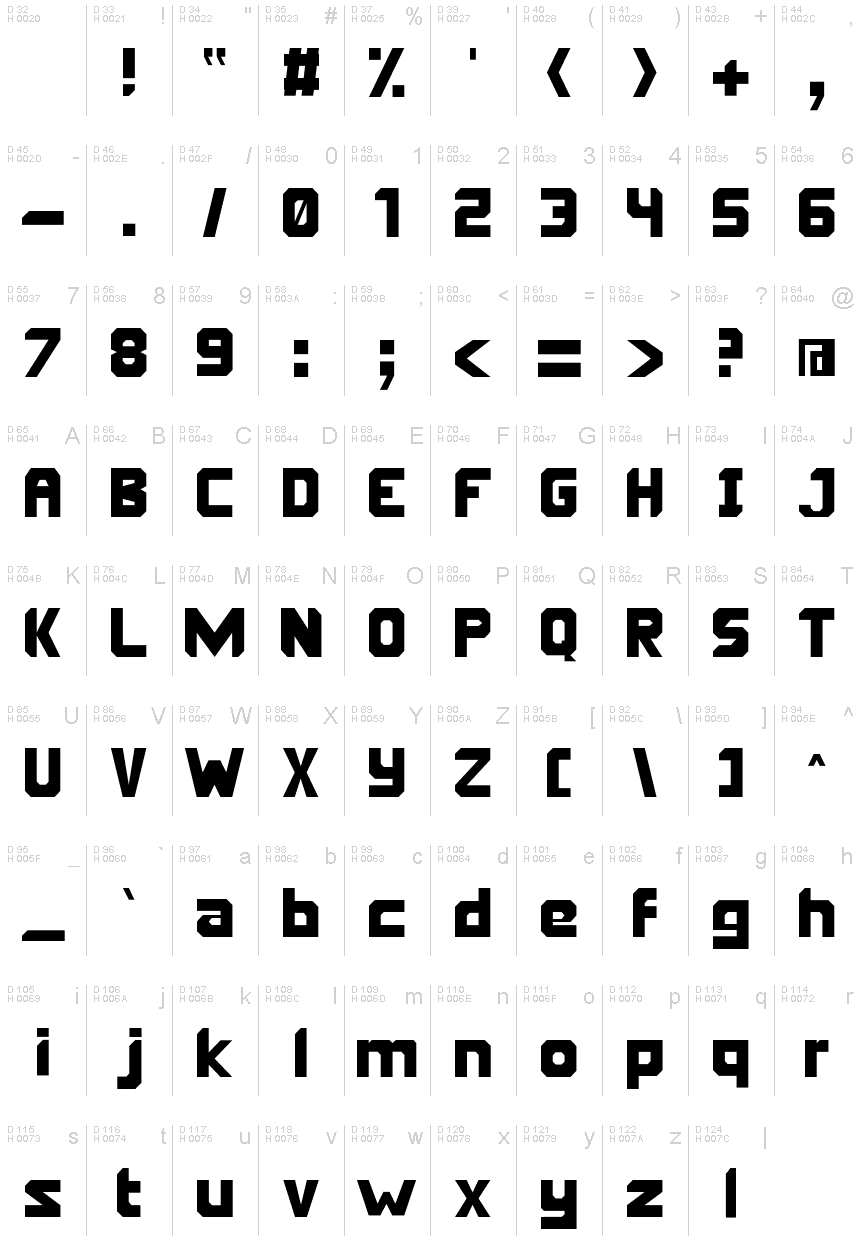
Oriema
Oriema, a bold and semi-expanded display font created by EAC, adds a futuristic touch to any project. With its techno style, Oriema is perfect for contemporary designs seeking a strong visual impact. Use this font to create eye-catching logos, posters, or website headers that demand attention. Its unique characteristics make it suitable for various projects including sci-fi movie titles, electronic music album covers, video game interfaces or even technology-related blogs and magazines. Oriema's boldness and semi-expanded width ensures your message stands out with confidence while captivating the audience in the modern world.